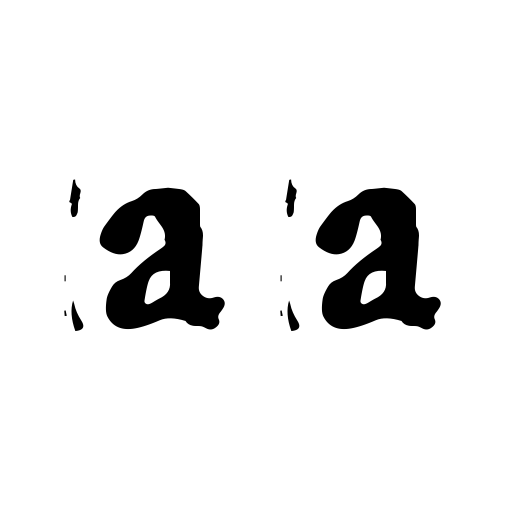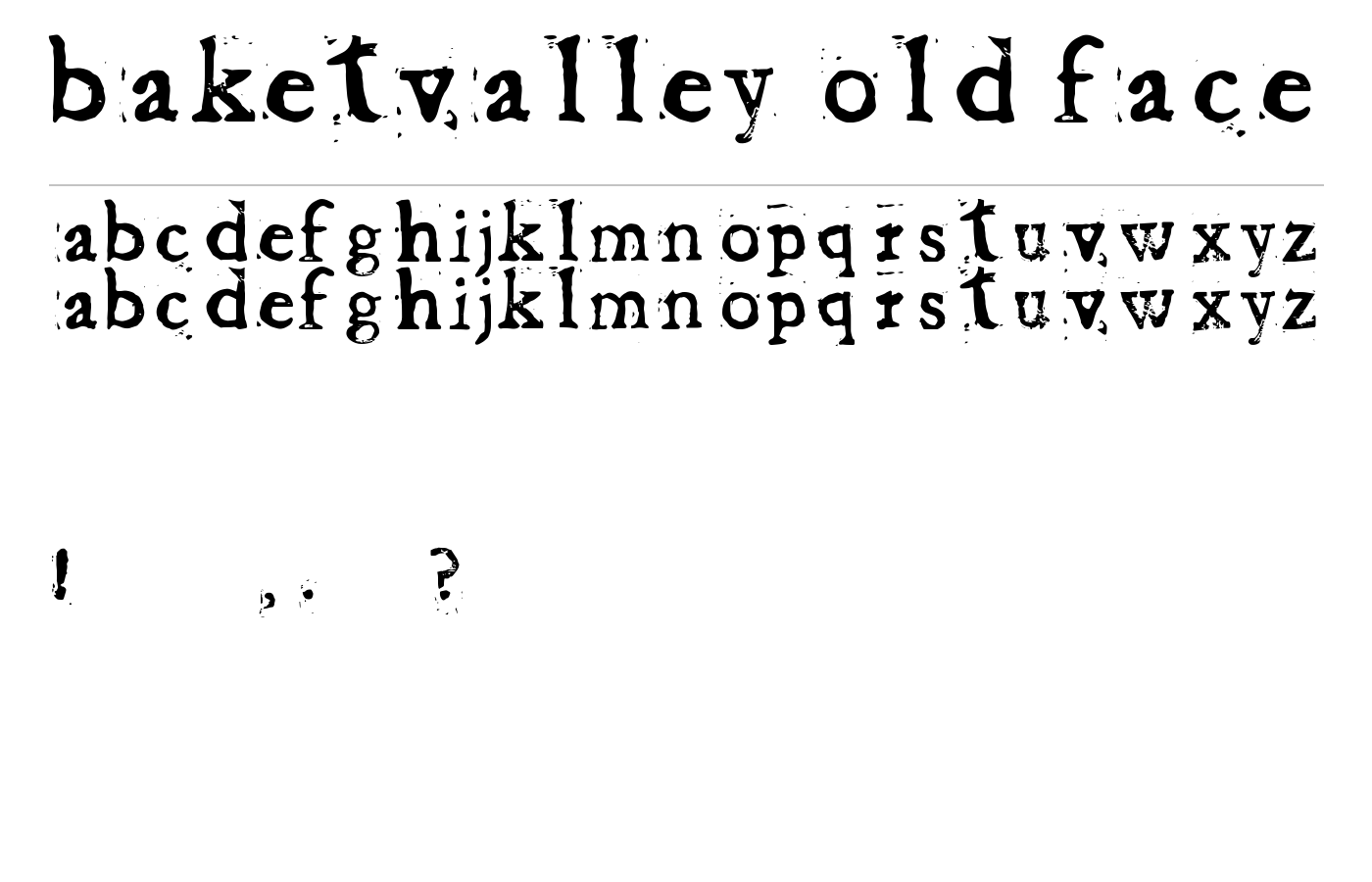
Baketvalley Old Face is a distressed serif font with a vintage, typewriter-like charm, featuring irregular edges and ink blot imperfections that give it an authentic, worn look. Its medium weight and moderate x-height create a balanced texture, perfect for designs that aim for a nostalgic, handcrafted feel. This font works well in editorial, packaging, and creative projects where an old-fashioned, artisanal character is desired.
Baketvalley Old Face Font
About Baketvalley Old Face Font